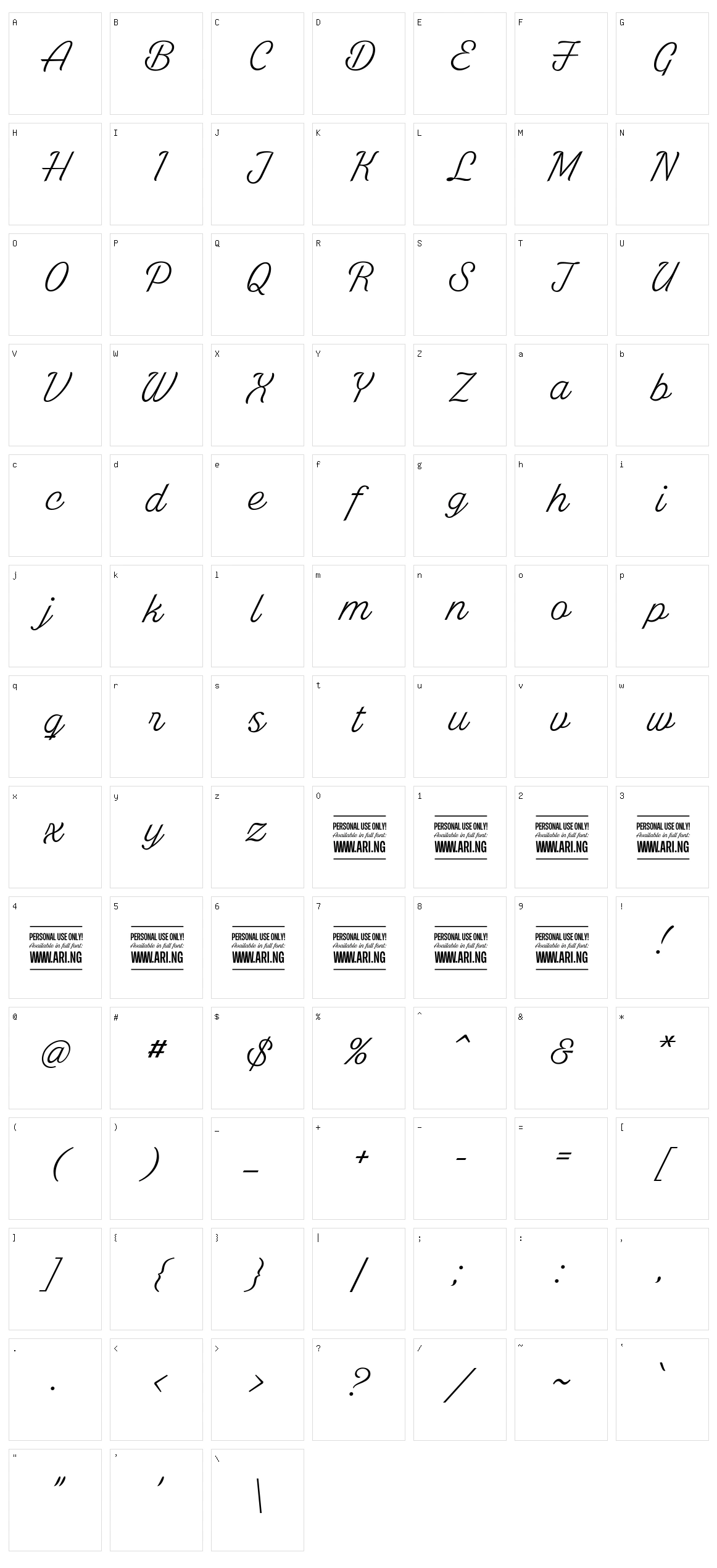
Larch is a clear and crisp high quality script typeface.
It consists of five weights: White, Bright, Shaded, Dark & Black.
Each style is working great separately, but they
make the perfect combination together.
Larch is designed by Måns Grebäck in 2016.
The font supports hundreds of languages.
It contains contextual and stylistic alternates, swashes and ligatures.
Write # after any lowercase letter to make swashes!
You can also write % after the following letters to make left swashes:
b d f h i j k l t
Example: Black% Lar#ch